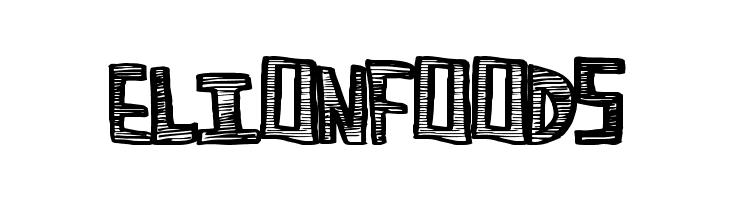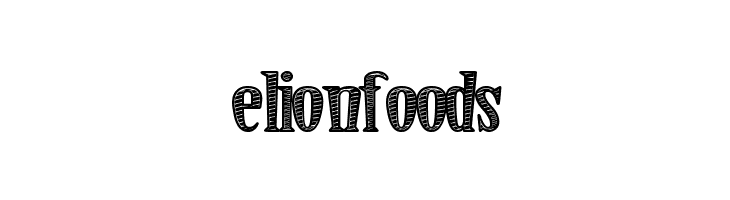
( Fonts by Xerographer Fonts )
A bold, textured font with a hand-drawn, sketch-like appearance.
A bold, 3D decorative font with a playful and dynamic style.
A rugged, distressed font with a bold, jagged style and uneven edges.
A bold, angular font with a gothic flair, perfect for dramatic and impactful designs.
A bold, textured font with a hand-drawn, sketch-like appearance.
A whimsical, hand-drawn font with textured, sketch-like strokes.
A bold, 3D-effect font with consistent width and dynamic texture.
A playful, hand-drawn font with quirky, uneven letterforms and a casual vibe.
A playful, bold outline font with a hand-drawn, whimsical style.
A bold, slanted font with a dynamic and energetic style.
A bold, jagged font with an eerie, horror-themed design.
A playful, hand-drawn font with a sketchy, textured appearance.
A dynamic and flowing script font with elegant curves and artistic flair.
( Xerographer Fonts - Max Infeld - xerographer.blogspot.com )
A bold, playful, hand-drawn font with a three-dimensional shadow effect.
( Xerographer Fonts - Max Infeld - xerographer.blogspot.com )
A whimsical, hand-drawn font with tall, narrow characters and a playful style.
A bold, jagged font with a chaotic, energetic style.
A scratchy, hand-drawn font with a dynamic and edgy appearance.
A rugged, edgy font with sharp, jagged lines and a rebellious aesthetic.
A bold, distressed font with a scratched, textured appearance.
A bold, jagged font with a scratch-like, distressed appearance.
A playful, hand-drawn font with scratchy, textured lines.
A playful, hand-drawn font with a bold, scribbled texture.
An ornate and decorative script font with intricate swirls and flourishes.
A playful, stitched-style font with a handmade aesthetic.
A playful, hand-drawn font with wavy, oceanic-inspired strokes.
A casual, handwritten font with a playful and informal style.
A graffiti-inspired font with jagged, angular lines and a rebellious, edgy style.
A bold, decorative font with a hand-drawn, textured style.
A bold, hand-drawn font with an expressive and playful style.
A playful, organic font with fluid, rounded outlines.
A whimsical, hand-drawn font with wavy, textured outlines and playful character shapes.
A rugged, distressed font with a hand-drawn, edgy style.
A bold, modern font with thick strokes and sharp edges, ideal for impactful headlines.
A rugged, stitched-style font with a handcrafted, edgy appearance.
A bold, distressed font with a hand-drawn, graffiti-like style.